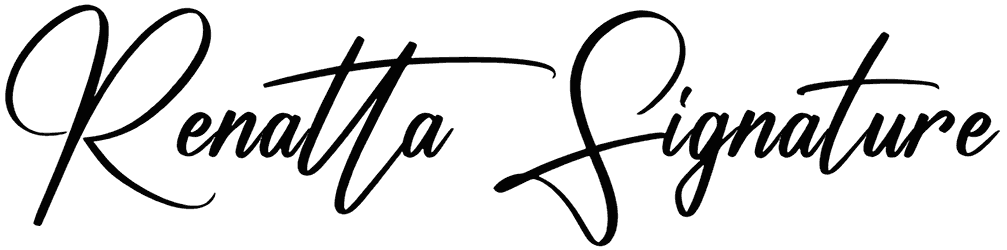
Renatta Signature Font
To add your text with a gorgeous and royal style mood, give a chance to Renatta Signature. As a calligraphy font, Renatta Signature can be set on a lot of designs, for instance, business cards, Instagram quotes, magazines, and so forth, and guess what? You have full characters of this signature font and can create ravishing designs.